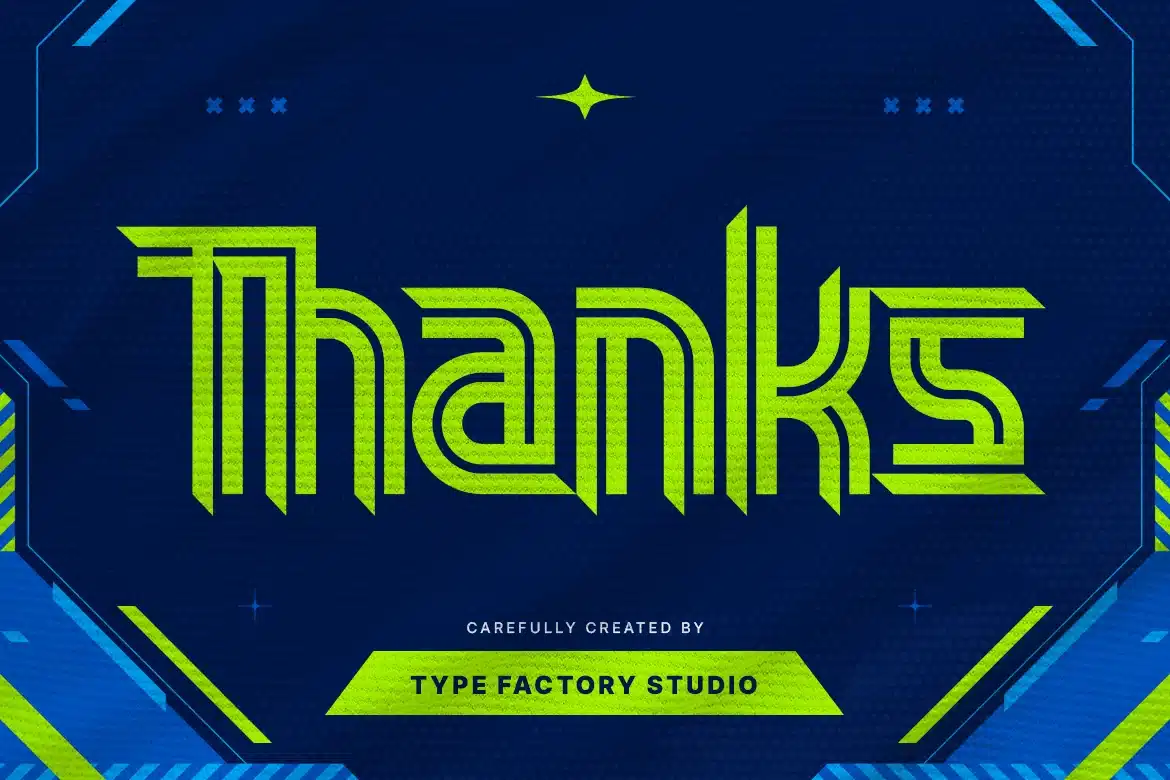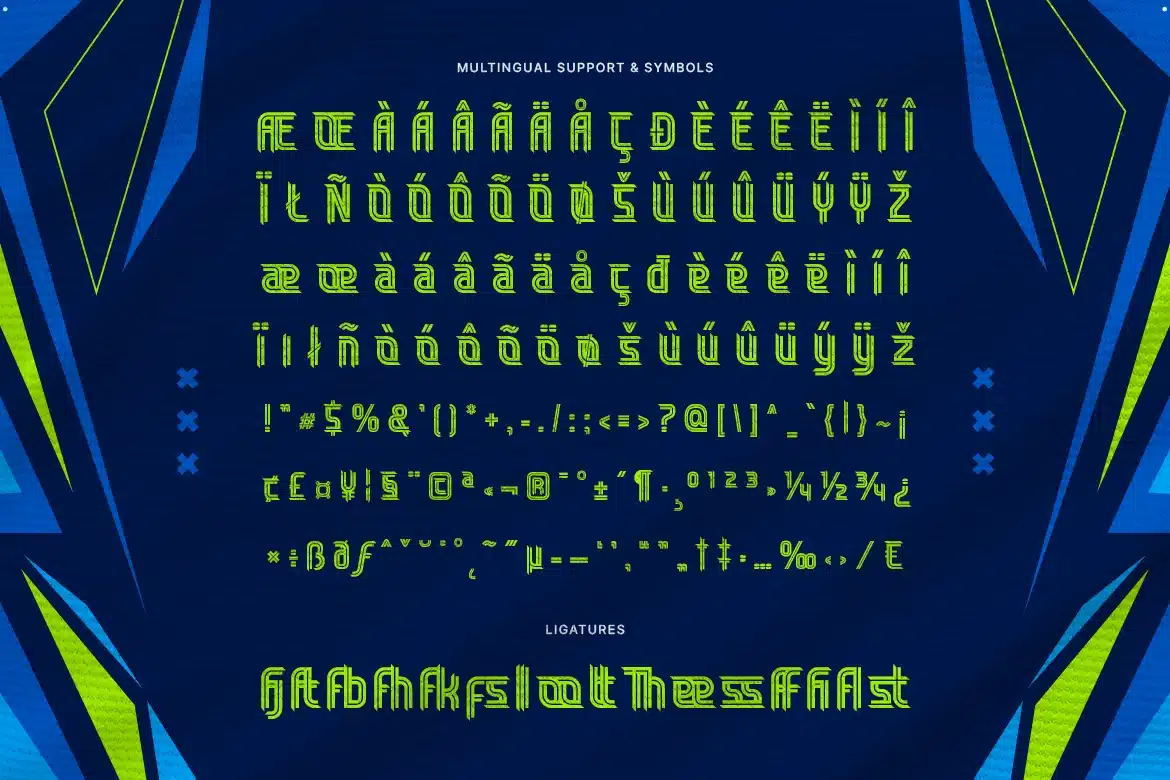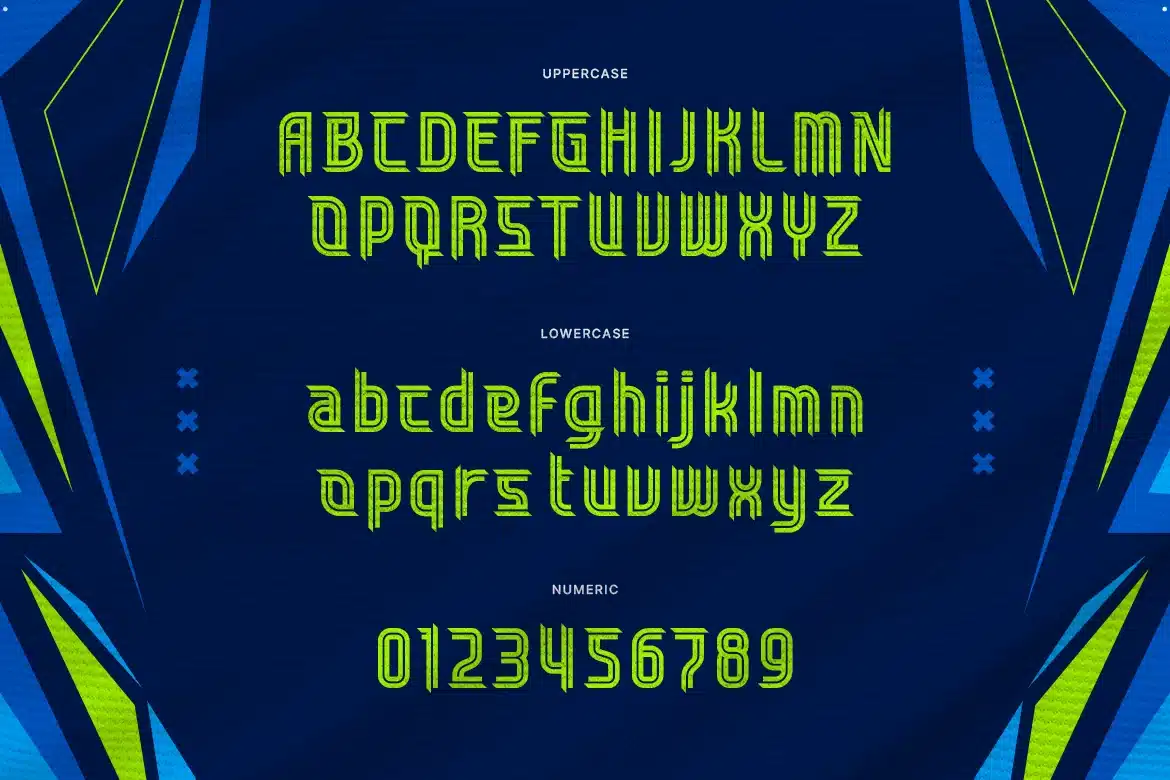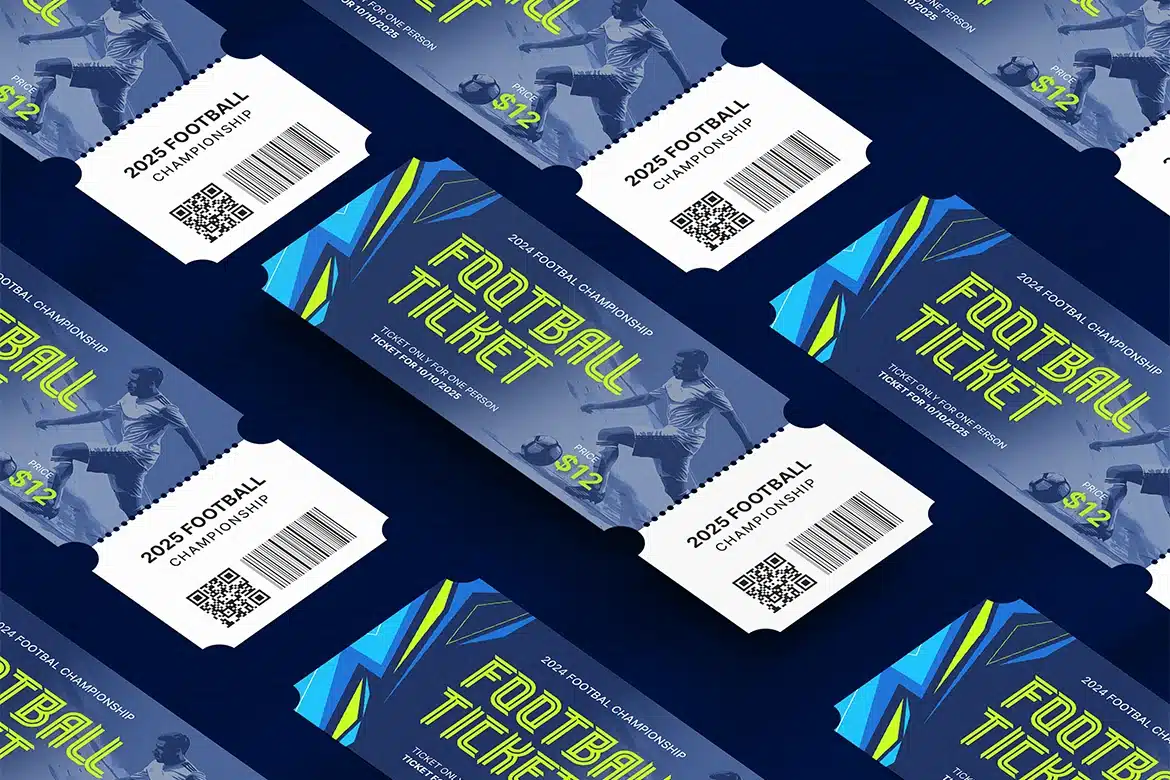
Sport Display Font – Godpes
Godpes is a modern sport display font designed with bold geometric shapes and sharp line details. The structured letterforms create a strong and energetic visual style, making it suitable for athletic and competitive design themes.
This typeface works well for sports branding, esports graphics, posters, and event promotions. Godpes includes uppercase and lowercase characters, numerals, punctuation, ligatures, and multilingual support, allowing designers to build strong and dynamic typographic compositions.
– Uppercase
– Lowercase
– Symbols & Punctuation
– Numeral
– Ligature
– Multilingual Support